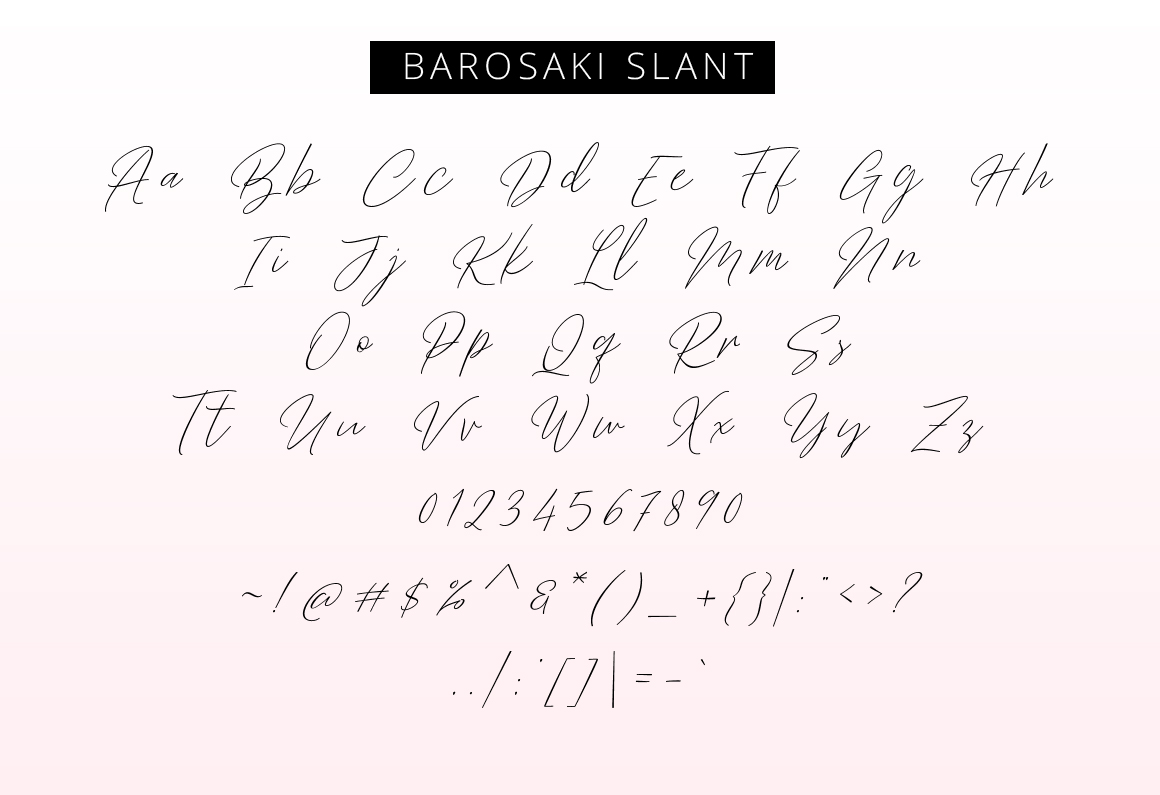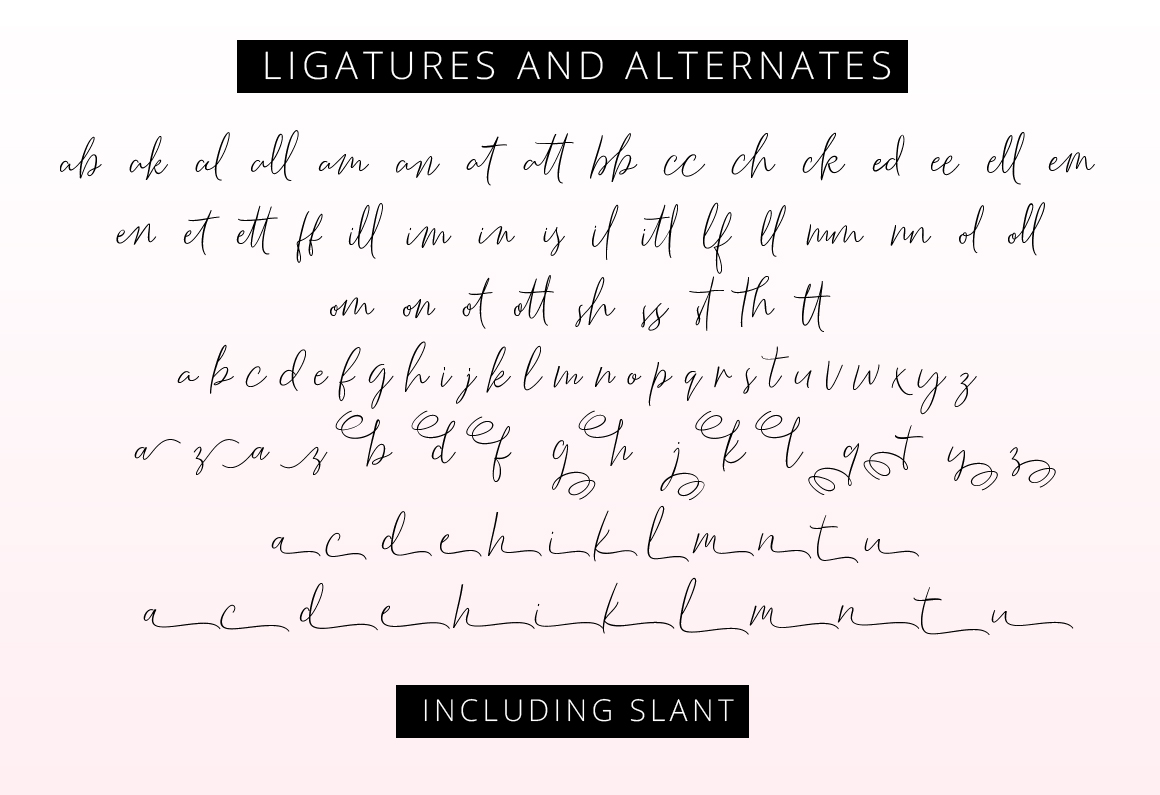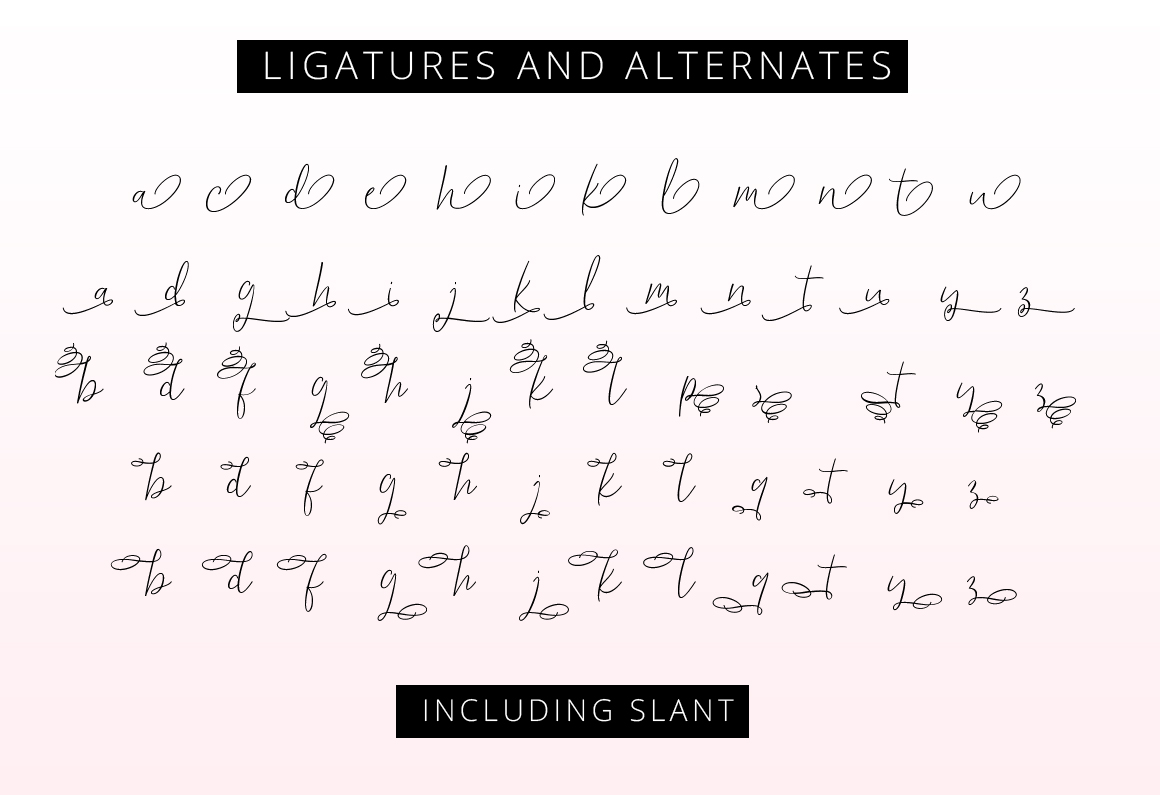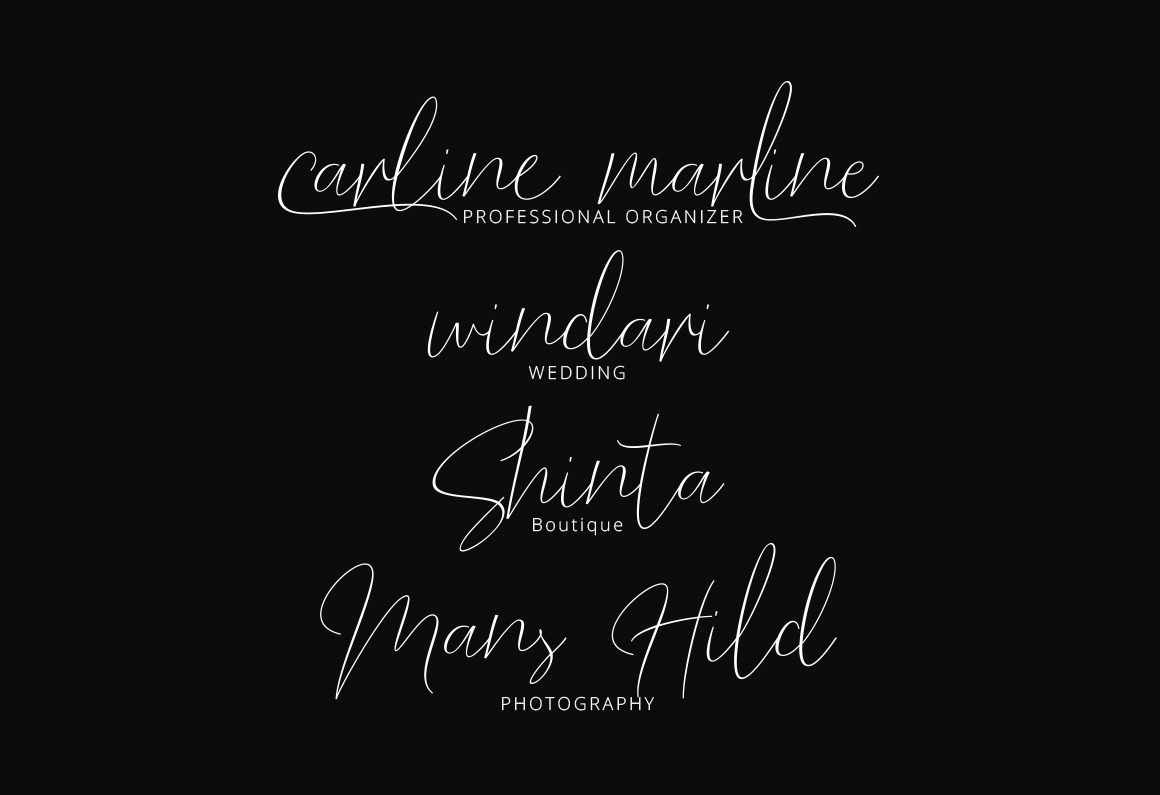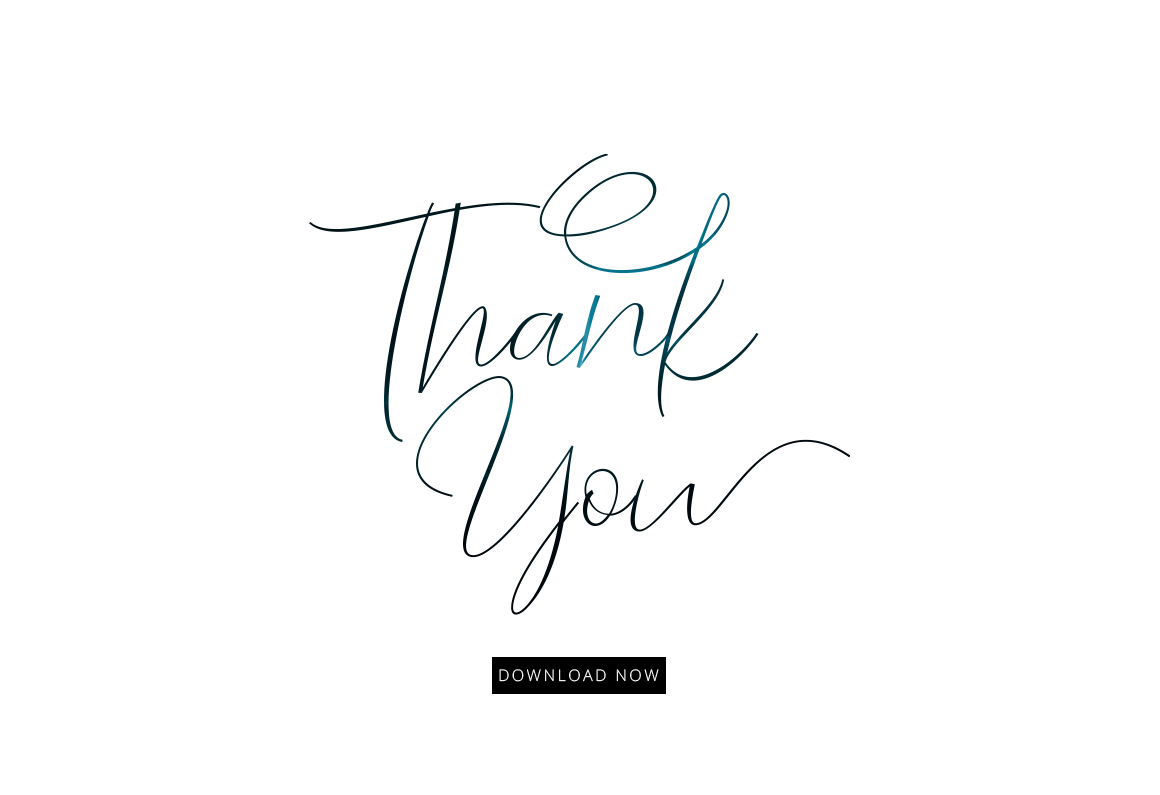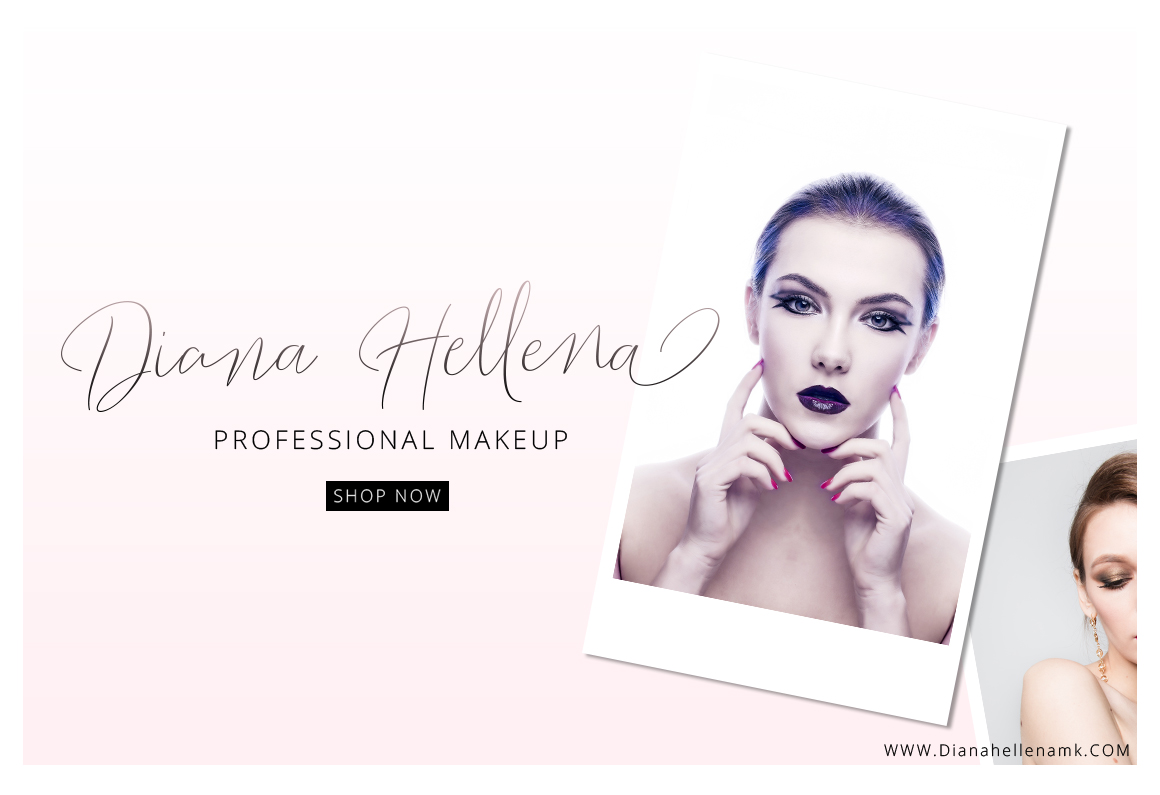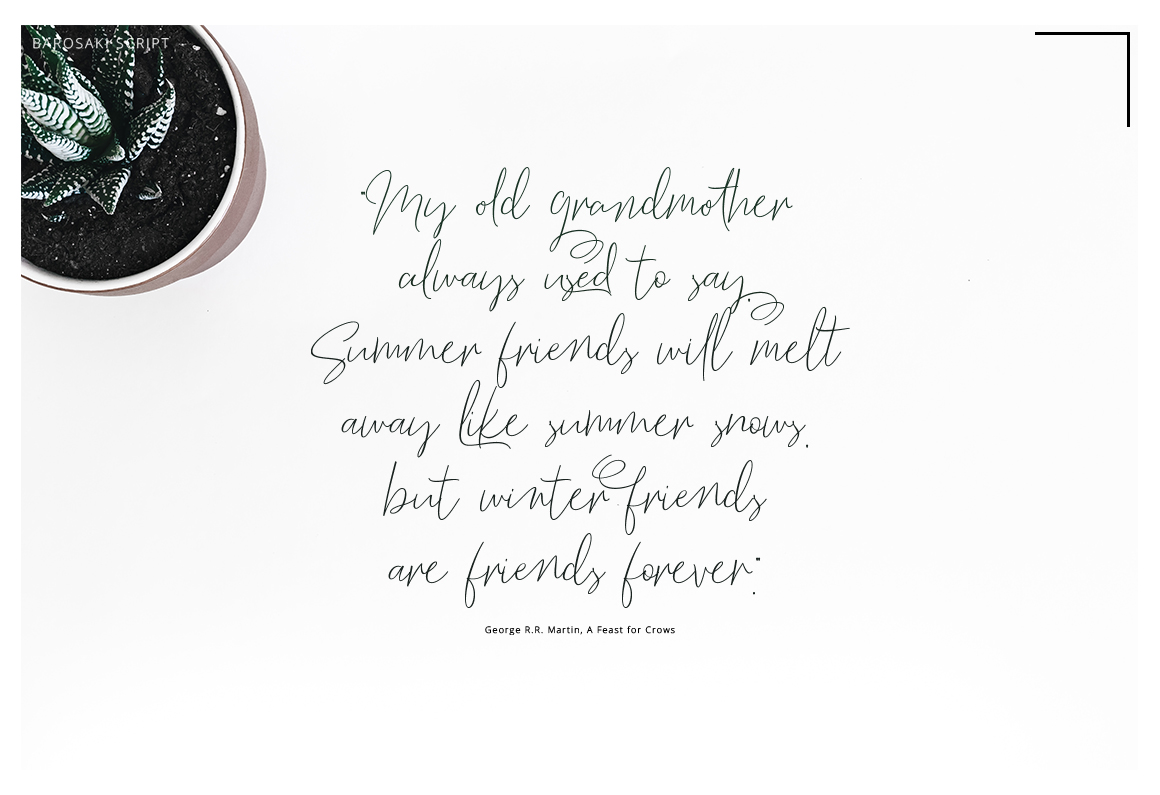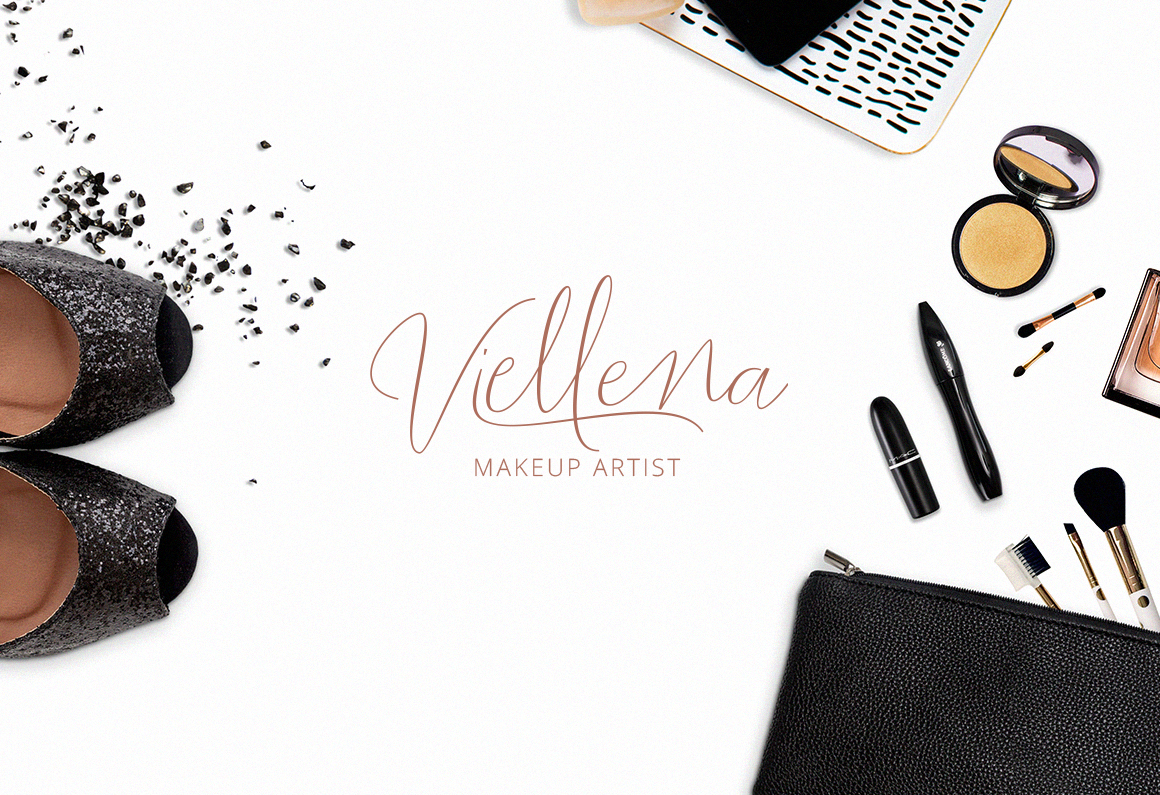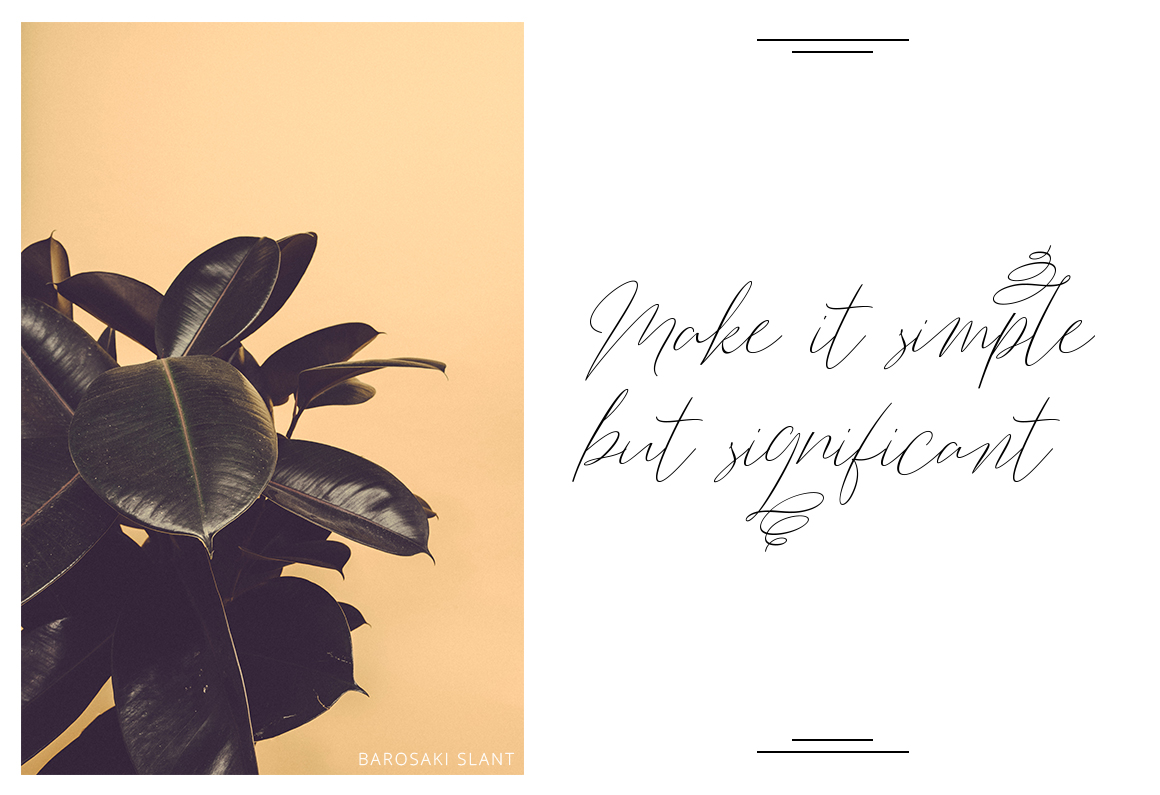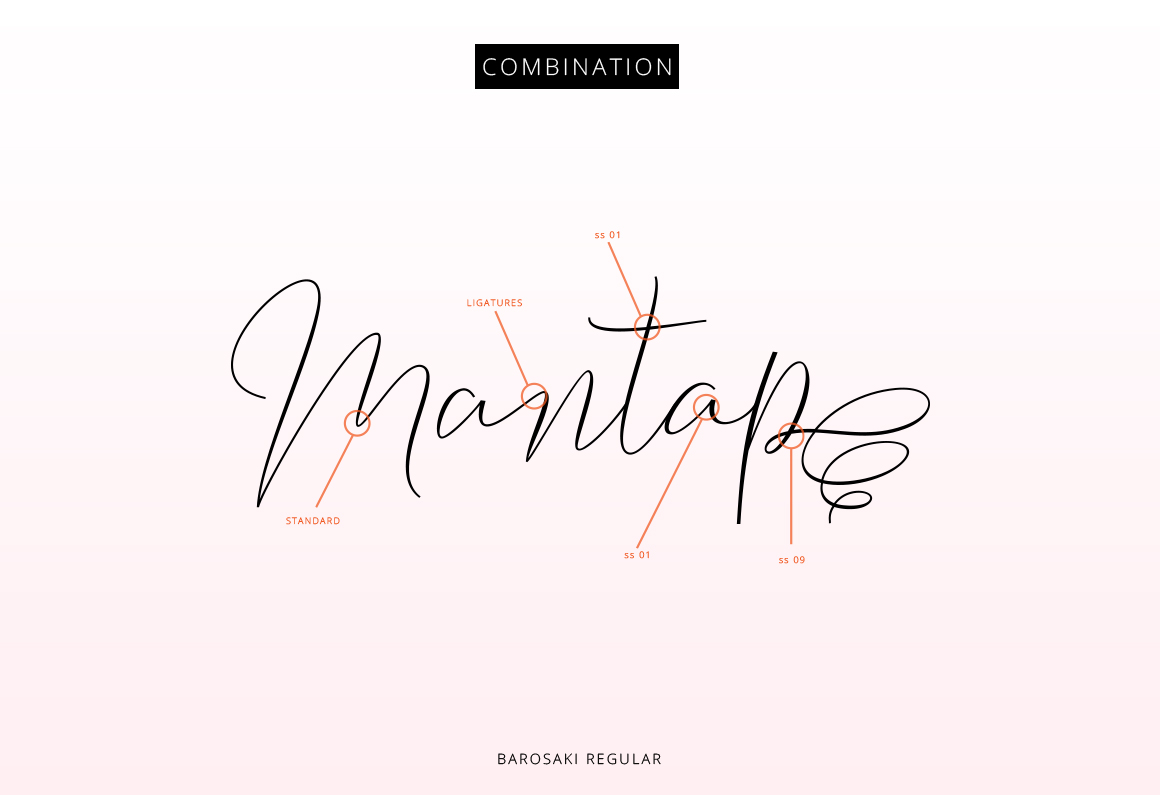
Barosaki Font
About Barosaki Font
Barosaki is a unique blend of classic and modern font sensibilities; with intriguing imperfections that add style and character, this font is ideal for a wide range of projects and designs.